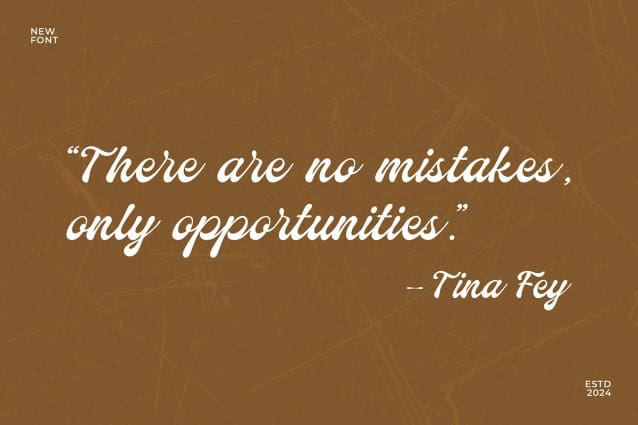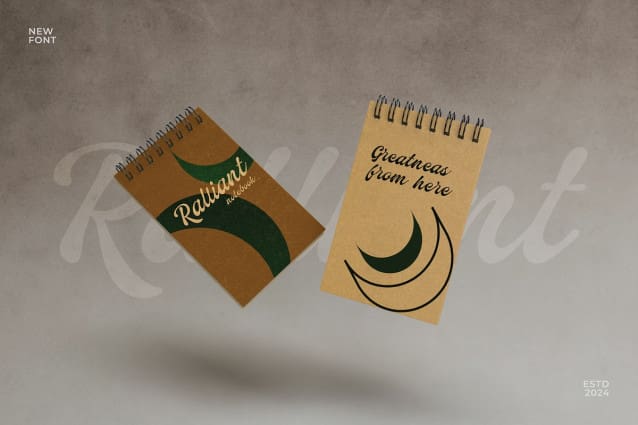
Ralliant Script Font
Ralliant Script Font is a bold and expressive brush script font that brings energy and creativity to any project. Its natural, hand-drawn strokes make it perfect for adding a personal touch to your designs.